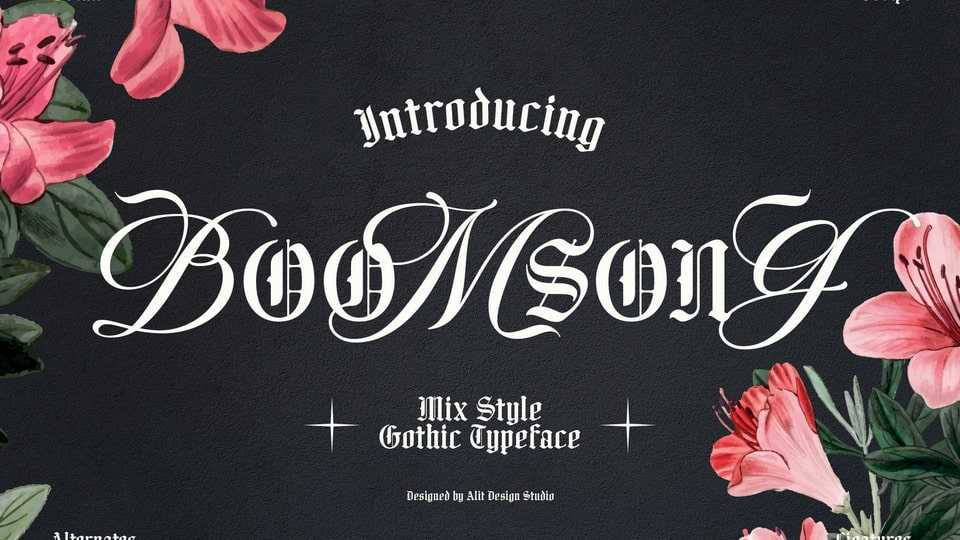
Download Boomsong font, a stunning typeface that combines the beauty of blackletter and the elegance of script styles. Boomsong font features a unique mix of these two styles, creating a perfect balance between boldness and refinement.